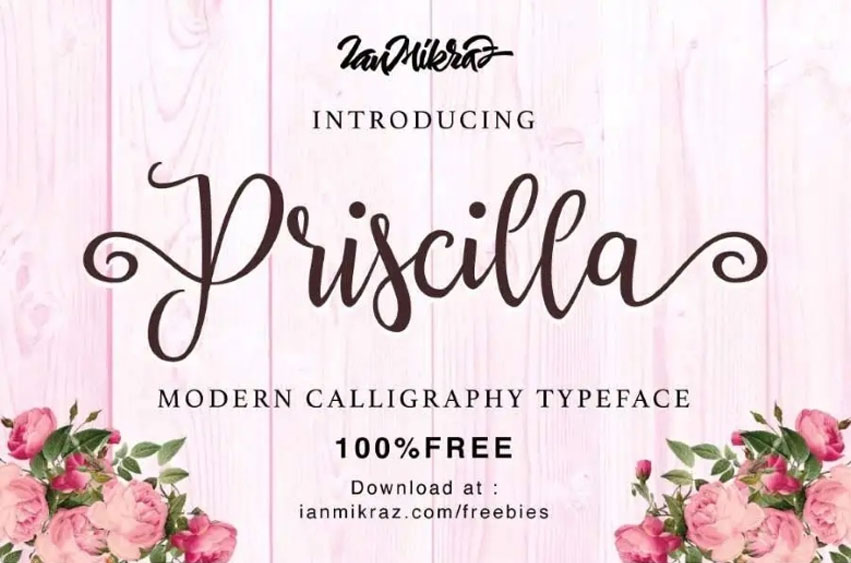
Priscilla Font Script Free Typeface If you are in the lookout for a new font that belongs to the calligraphy category, let me present to you Priscilla Script. Priscilla is concepted and published by Ianmikraz studio. From copperplate to contemporary typeface, Priscilla script is none the less traditional in style with classic beauty, elegance and touch.
Priscilla Script Free Typeface includes 282 glyphs, and 109 the additional option contains opentype characters and figures. Some of the features includes Swash Alternates, Stylistic Alternats, Standart Ligature etc. All the these alternate characters can be accessed using OpenType smart applications like Adobe Illustrator, Adobe InDesign and CorelDraw X6-X7.